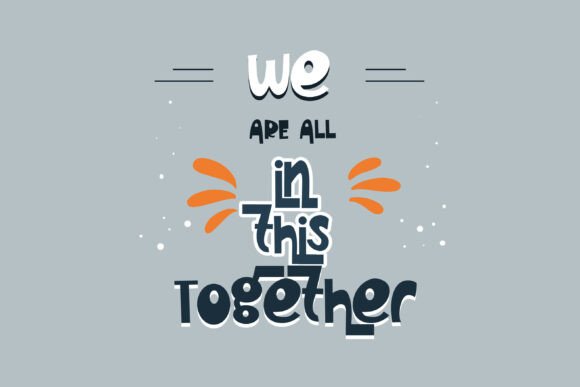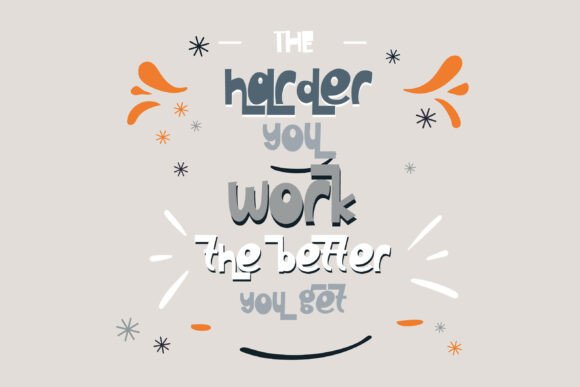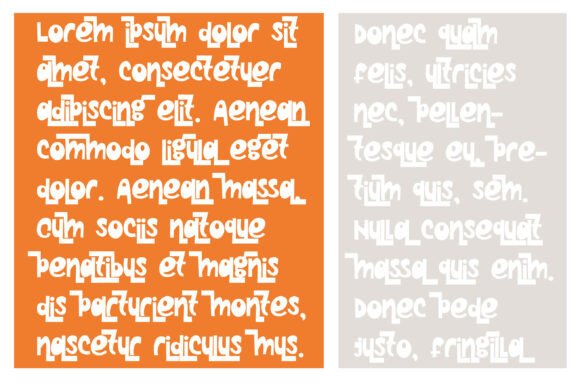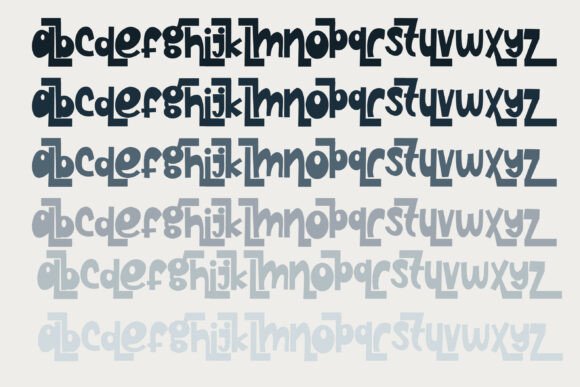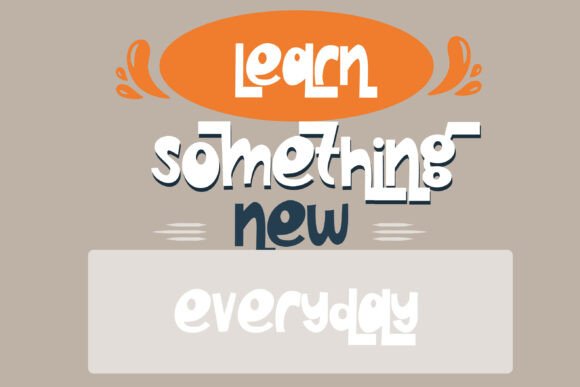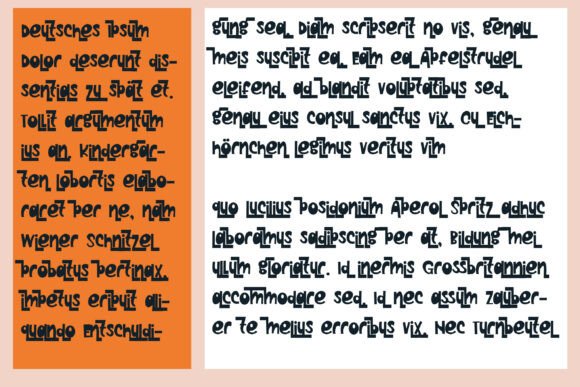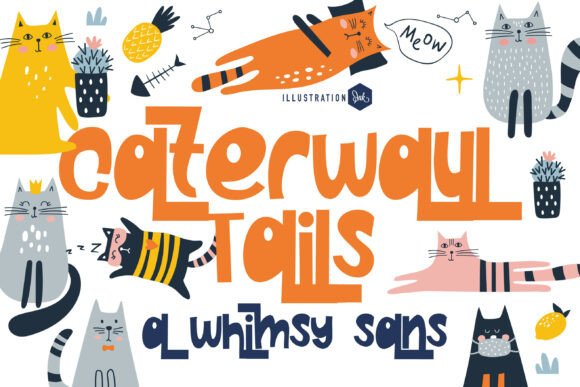
Caterwaul Tails Font: Unleash Whimsy and Wonder in Your Designs
Are you ready to inject a dose of playfulness and energy into your designs? Look no further than Caterwaul Tails, a charming sans-serif font that’s perfect for designers and crafters seeking to add a touch of mischief to their work. This delightful typeface is a masterclass in playful geometry, boasting a unique blend of tall, blocky structures and quirky, organic flourishes that will make your designs stand out from the crowd.
The Star of the Show: Tails that Delight
So, what sets Caterwaul Tails apart from other fonts? The answer lies in its signature “tails” – sharp, precision-cut flourishes that add a dynamic sense of movement to every word. These tails are the perfect touch of whimsy, imbuing your designs with a sense of fun and playfulness that’s sure to captivate audiences of all ages. Whether you’re designing a children’s book title, a pet-focused brand, or a high-energy apparel graphic, Caterwaul Tails is the perfect choice.
A Font for the Young and the Young at Heart
Caterwaul Tails is a font that’s all about embracing your inner child. Its unique personality makes it an extraordinary choice for designs that need to appeal to a younger audience, such as children’s book titles, educational social media content, and kids’ apparel graphics. However, its charm is not limited to designs for kids – it’s also perfect for crafters and designers who want to add a touch of playfulness to their work.
So, where can you use Caterwaul Tails? The possibilities are endless! Here are a few ideas to get you started:
• Children’s book titles: Add a touch of whimsy to your book covers and interior designs with Caterwaul Tails.
• Pet-focused branding: If you’re designing a logo or branding materials for a pet-related business, Caterwaul Tails is a purrfect choice.
• Educational social media content: Make learning fun with Caterwaul Tails, the perfect font for educational graphics and social media posts.
• High-energy apparel graphics: Add a boost of energy to your apparel designs with Caterwaul Tails, perfect for activewear, sportswear, and more.
What Sets Caterwaul Tails Apart
So, what makes Caterwaul Tails so special? Here are a few key features that set it apart from other fonts:
• Playful geometry: Caterwaul Tails boasts a unique blend of tall, blocky structures and quirky, organic flourishes.
• Signature tails: The sharp, precision-cut tails add a dynamic sense of movement to every word.
• Professional, human-centric warmth: Despite its playful nature, Caterwaul Tails delivers a sense of warmth and approachability that’s perfect for designs that need to connect with their audience.
• Legendary creative fun: This font is all about having fun and embracing your creative side.
Get Ready to Make Your Designs Shine
Tips for Using Caterwaul Tails
Here are a few tips for getting the most out of Caterwaul Tails:
• Experiment with different sizes: Caterwaul Tails looks great in a variety of sizes, from large headlines to smaller body text.
• Play with color: This font looks great in a range of colors, from bright and bold to more muted, pastel shades.
• Mix and match: Don’t be afraid to combine Caterwaul Tails with other fonts to create a unique look.
In conclusion, Caterwaul Tails is a font that’s all about embracing your creative side and having fun. With its playful geometry, signature tails, and professional, human-centric warmth, this font is perfect for designers and crafters seeking to add a touch of whimsy to their work. Whether you’re designing a children’s book title, a pet-focused brand, or a high-energy apparel graphic, Caterwaul Tails is the perfect choice. So why wait? Download Caterwaul Tails today and get ready to make your designs shine!